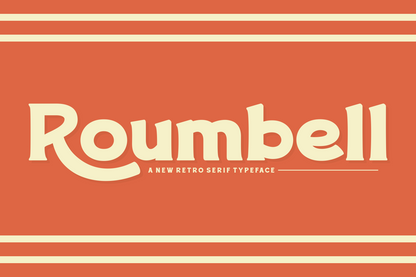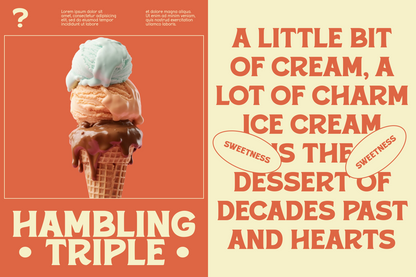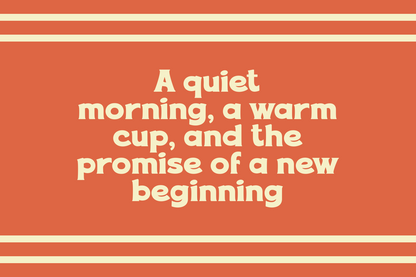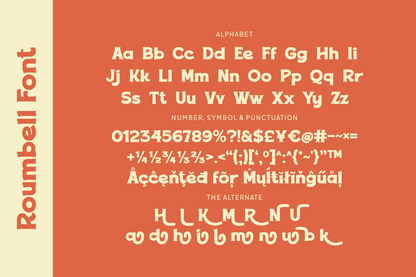
Roumbell is a bold retro serif font that channels vintage charm with a modern twist. Featuring playful curves and strong lines, it's perfect for logos, packaging, posters, and branding that calls for a groovy yet structured personality. Its nostalgic appeal makes it a great pick for anyone seeking a throwback vibe with fresh flair.